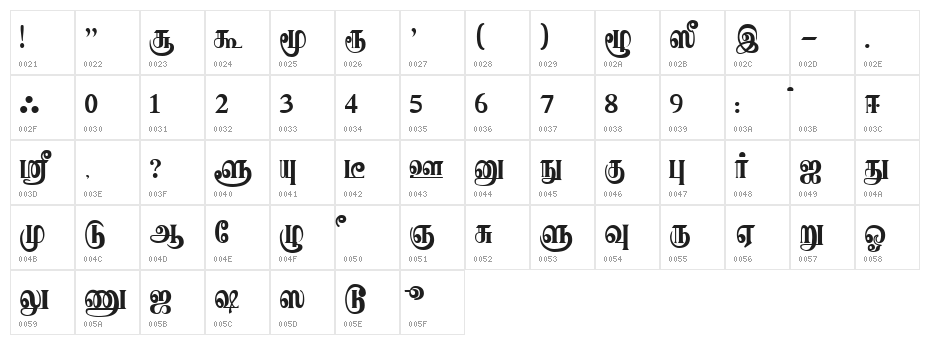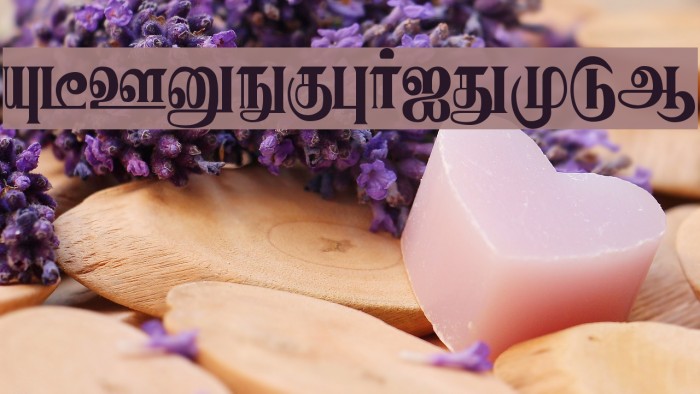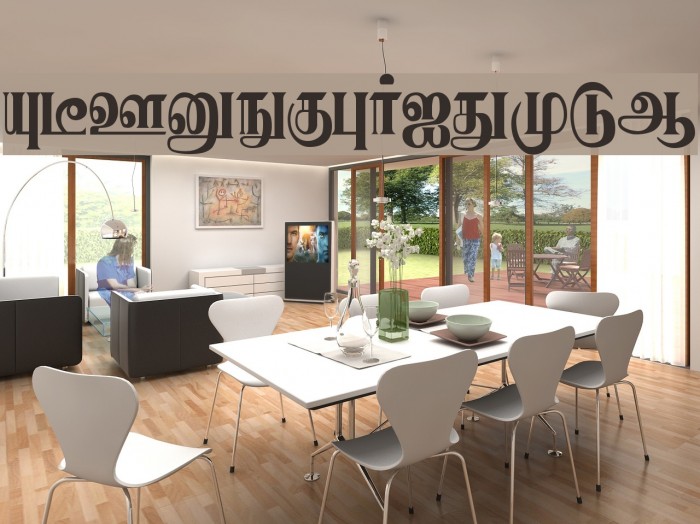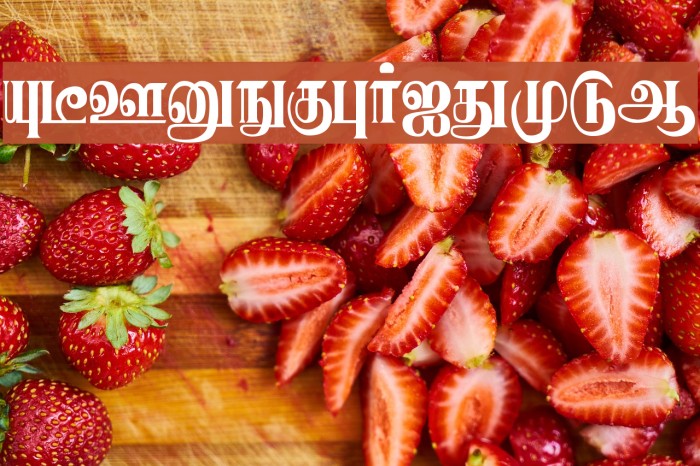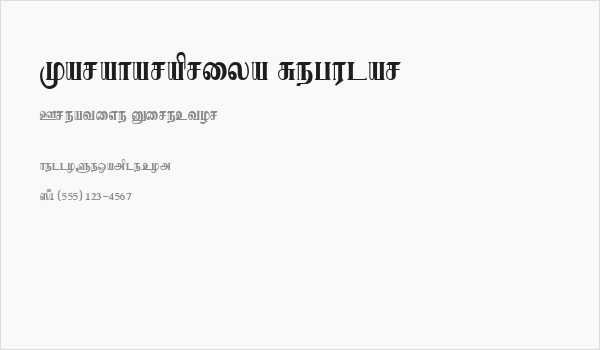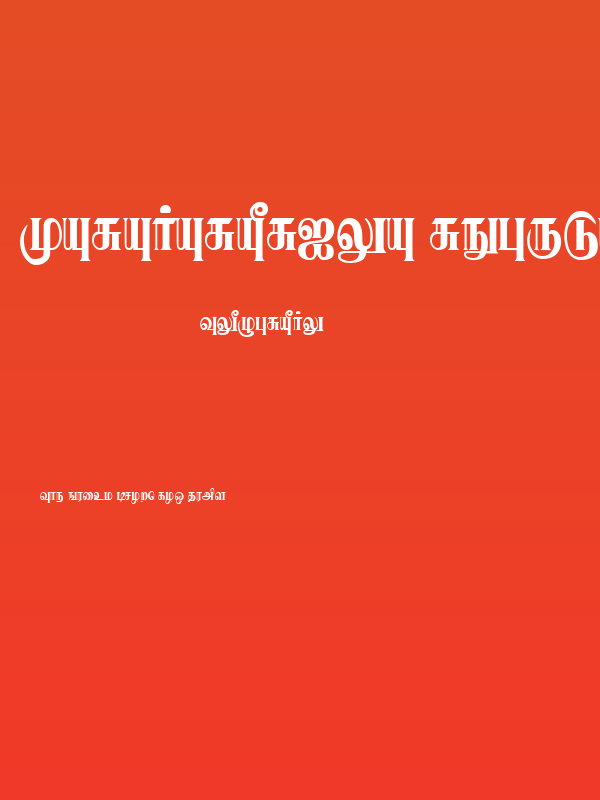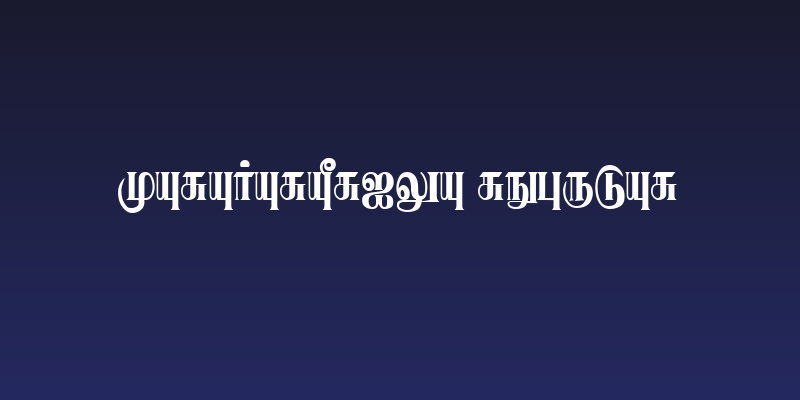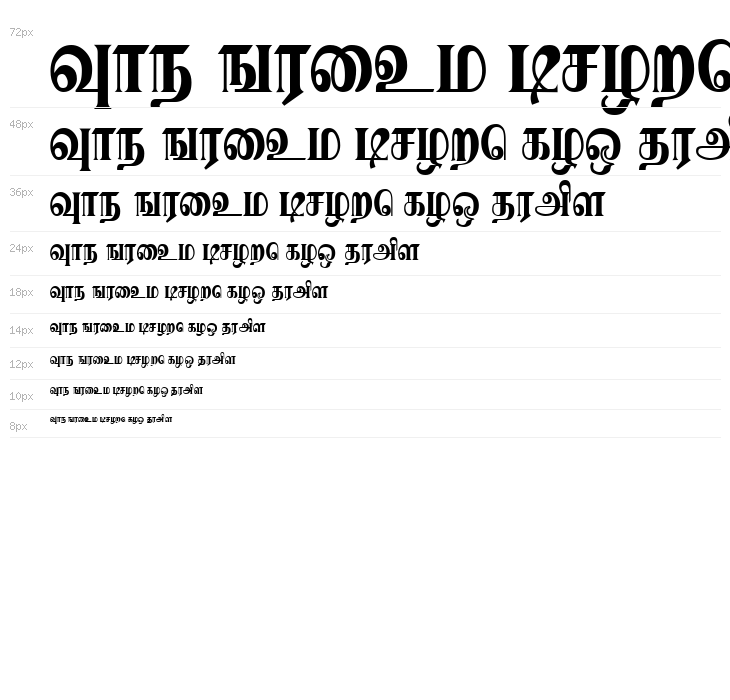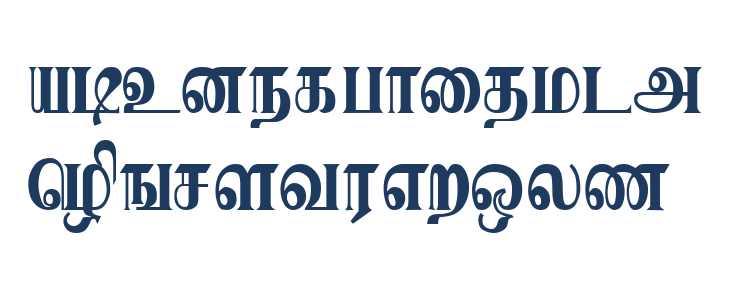
Karaharapriya Regular Font
Karaharapriya Regular Description
This font features a traditional Tamil script with a bold and elegant appearance. The characters are intricately designed, showcasing a high level of detail and craftsmanship. The numerals are bold and clear, making them easily distinguishable. The special characters are well-integrated into the overall design, maintaining the font's cohesive look. The strokes are moderately thick, providing a strong visual presence while retaining readability. This font is suitable for both formal and decorative purposes, offering versatility in its application.
| Use Case | Headlines, Signage, Decorative text |
| Proposed Projects | Ideal for cultural publications, educational materials, signage, and decorative projects requiring Tamil script. |